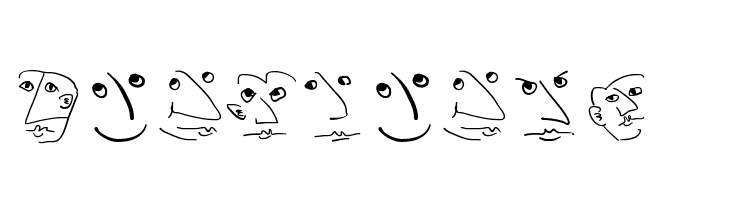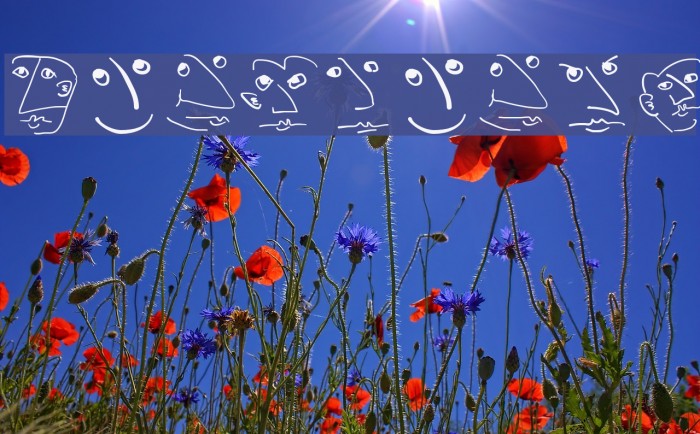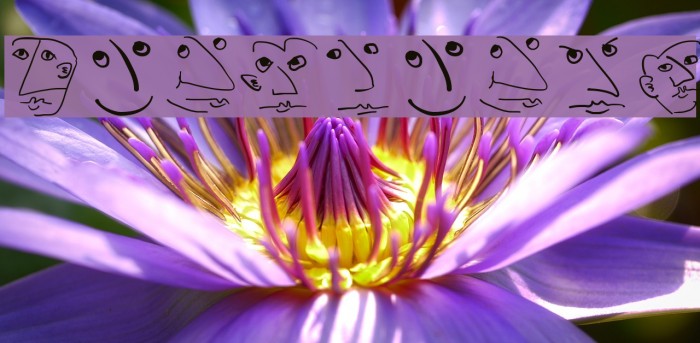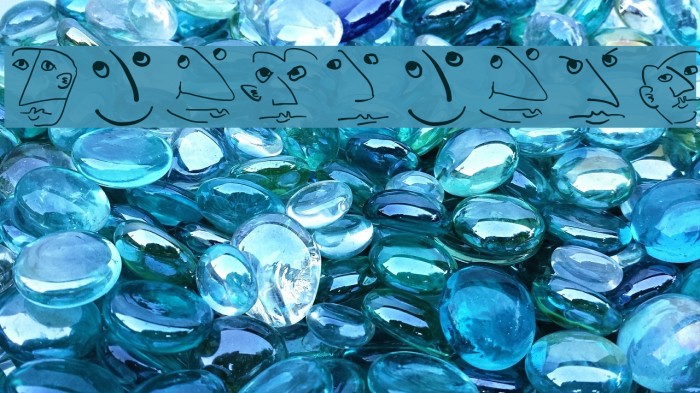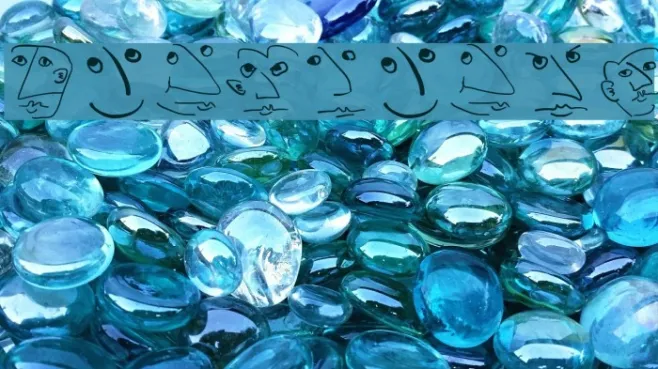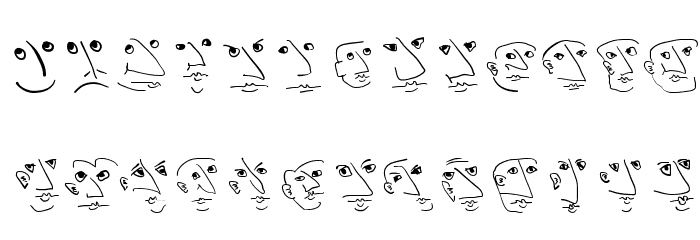
Wacofaces04 Font
This is a highly creative and whimsical font that features characters designed as abstract faces. Each letter and symbol is uniquely crafted to resemble a face with varying expressions, adding a playful and artistic touch. The strokes are hand-drawn, giving it a sketch-like appearance that emphasizes individuality and creativity. The font does not follow traditional typographic rules, instead offering a unique visual experience that is both engaging and entertaining. It's perfect for projects that require a fun and unconventional aesthetic.
A whimsical font with characters designed as abstract faces.
• Proposed Projects: Ideal for children's books, creative posters, art projects, and playful branding.
• Category: Decorative/Display
• Contrast: Low
• Overall Style: Artistic and Playful
• Use Case: Logos, Posters, Art Projects